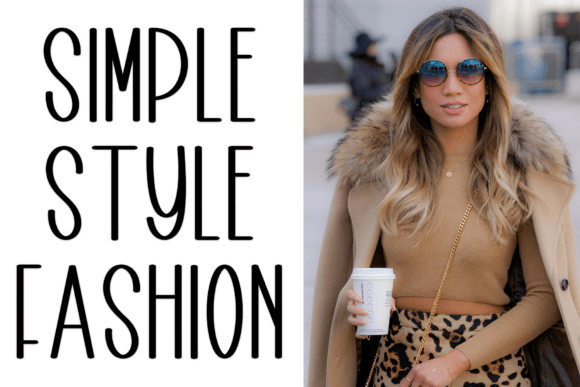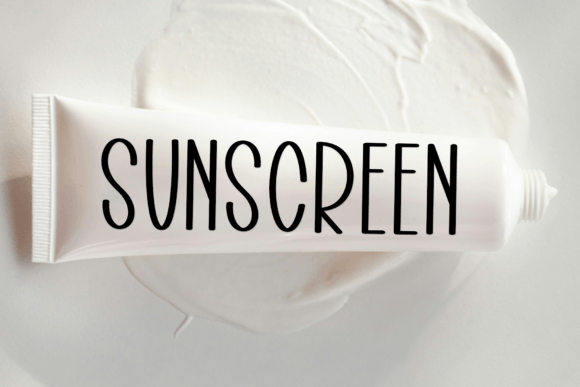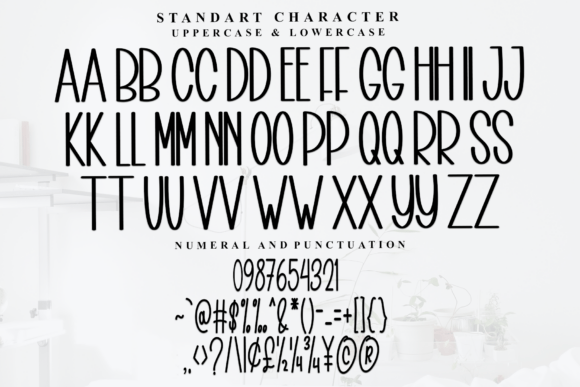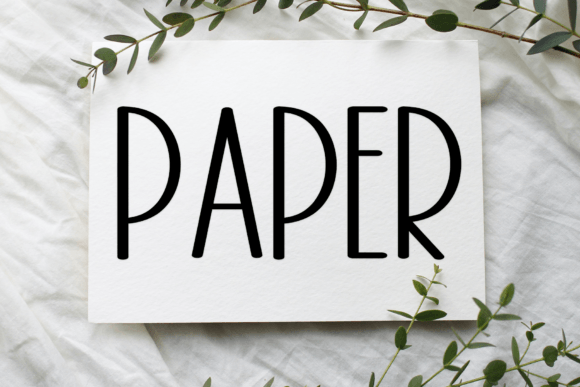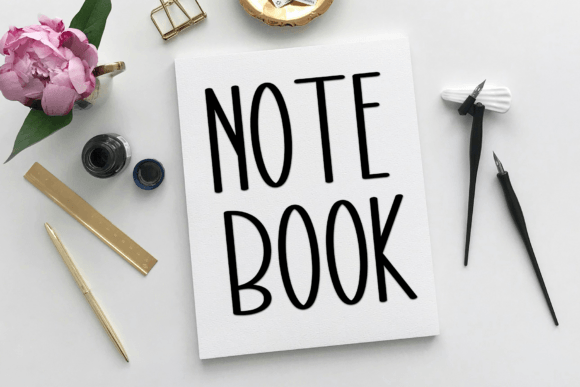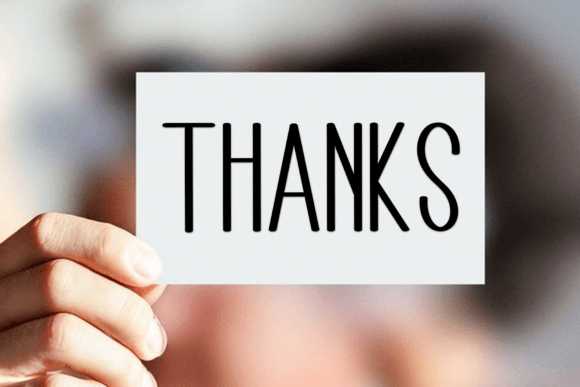
Introduction to Paper People Font
Paper People is a casual and creative font that exudes warmth and friendliness.
Key Features of Paper People Font
Why Choose Paper People Font?
Paper People Font offers exceptional quality and versatility, making it a valuable addition to your design toolkit. Whether you’re creating for personal projects or commercial use, Paper People Font delivers professional results.